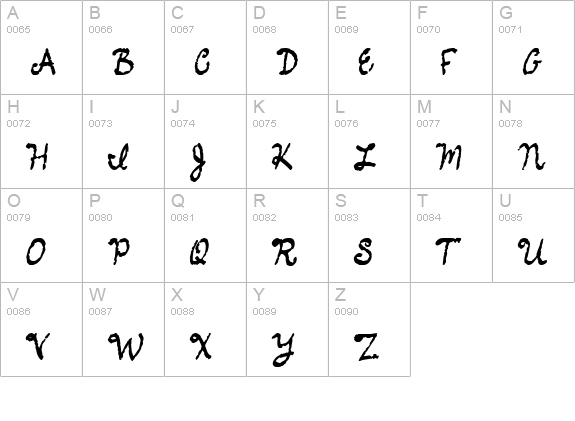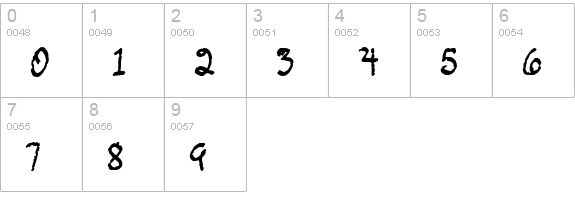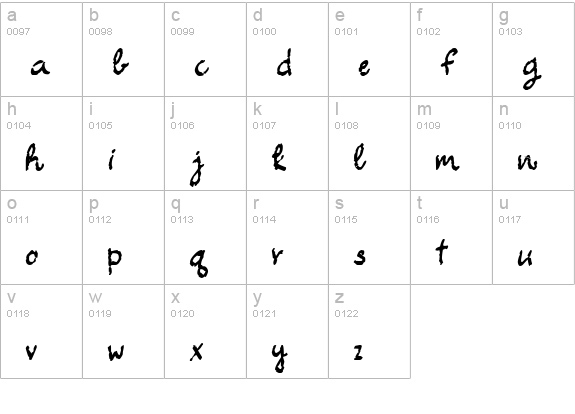
CK Smokey Font Details
Discover the bold and eye-catching CK Smokey font, a versatile typeface that exudes sophistication and charm. With its unique blend of modernity and elegance, CK Smokey is perfect for a wide range of design projects, from branding to packaging to editorial design. Its sleek lines and distinctive curves make a statement while maintaining readability and legibility. What's even better? CK Smokey is available for free download at FontsMarket.com, giving you access to this stunning font without any cost. Whether you're a designer looking to enhance your creative projects or a business owner wanting to elevate your brand's visual identity, CK Smokey is sure to impress with its timeless appeal and contemporary flair. Download CK Smokey today and add a touch of sophistication to your designs.